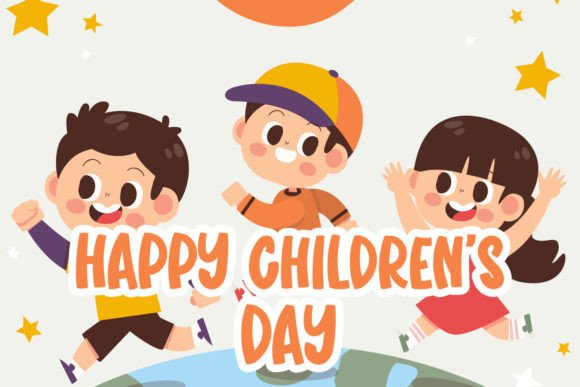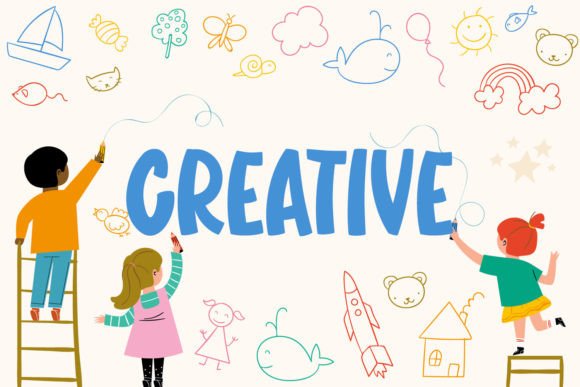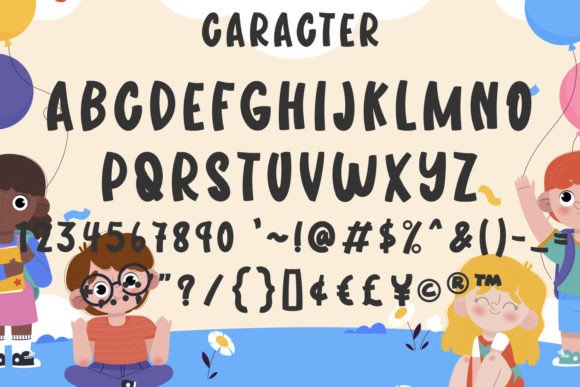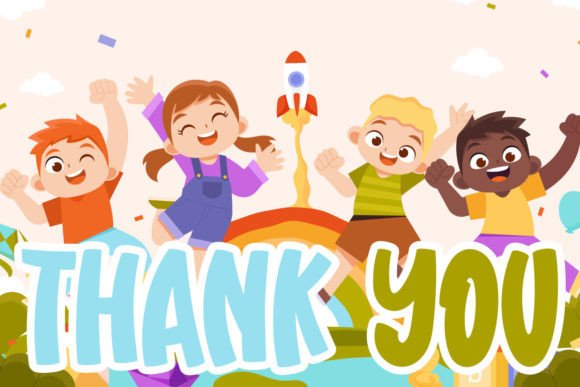
Introduction to Kids Lemon Font
Do you remember the excitement of creating a DIY craft project as a kid? The thrill of bringing an idea to life, experimenting with colors and textures, and proudly showcasing your masterpiece to family and friends? That same sense of wonder and creativity can be ignited in children today with the perfect design tool – the Kids Lemon Font.
As a designer, you’re always on the lookout for high-quality resources that make your projects stand out. The Kids Lemon Font is a delightful display font that embodies playfulness and authenticity, making it the perfect choice for any children’s activity or school project. With its transparent background and free download option, this design resource is a valuable addition to your creative arsenal.
Whether you’re working on a school project, designing a children’s book, or creating a fun activity for kids, the Kids Lemon Font is sure to bring a smile to their faces. Its friendly and approachable design makes it an ideal choice for any creative project that requires a touch of whimsy and fun.
Key Features of Kids Lemon Font
- High-quality, hand-drawn design ideal for creative projects and educational materials.
- Designed with a playful and cheerful tone, perfect for kids’ educational materials, websites, and other creative projects.
- Perfect for use in educational materials, websites, social media graphics, and other creative projects that require a fun and engaging tone.
Honest Review: Kids Lemon Font
I recently had the opportunity to try out the Kids Lemon Font, and I must say it’s a delightful addition to any design project. As a designer, I’m always on the lookout for high-quality design resources that can elevate my work.
Here’s what works well: ✨ The Kids Lemon Font is incredibly versatile and can be used in a variety of creative projects, from children’s book illustrations to playful advertising campaigns. The font is also a free download, making it a fantastic resource for designers on a budget. One of the standout features of this font is its transparent background, which allows for seamless integration with any design element.
However, there are some limitations to consider: ⚠️ While the font is a great addition to any design project, it may not be suitable for more formal or professional applications. Additionally, the font is a bit on the playful side, so it may not be the best choice for projects that require a more serious tone.
Overall, I’m thoroughly impressed with the Kids Lemon Font. It’s a fantastic design resource that can add a touch of whimsy and fun to any creative project. Whether you’re working on a children’s book or a playful advertising campaign, this font is definitely worth checking out.
- Not suitable for formal or professional applications
Tips for Getting the Most Out of Kids Lemon Font
Use the Kids Lemon Font in conjunction with other design resources, such as high-quality images and graphics, to create a visually appealing design. Experiment with different font sizes and styles to add creativity to your project.
The Kids Lemon Font is ideal for creative projects, such as children’s books, educational materials, and party invitations. It’s also a great resource for designers who want a free download of a high-quality font with a transparent background.